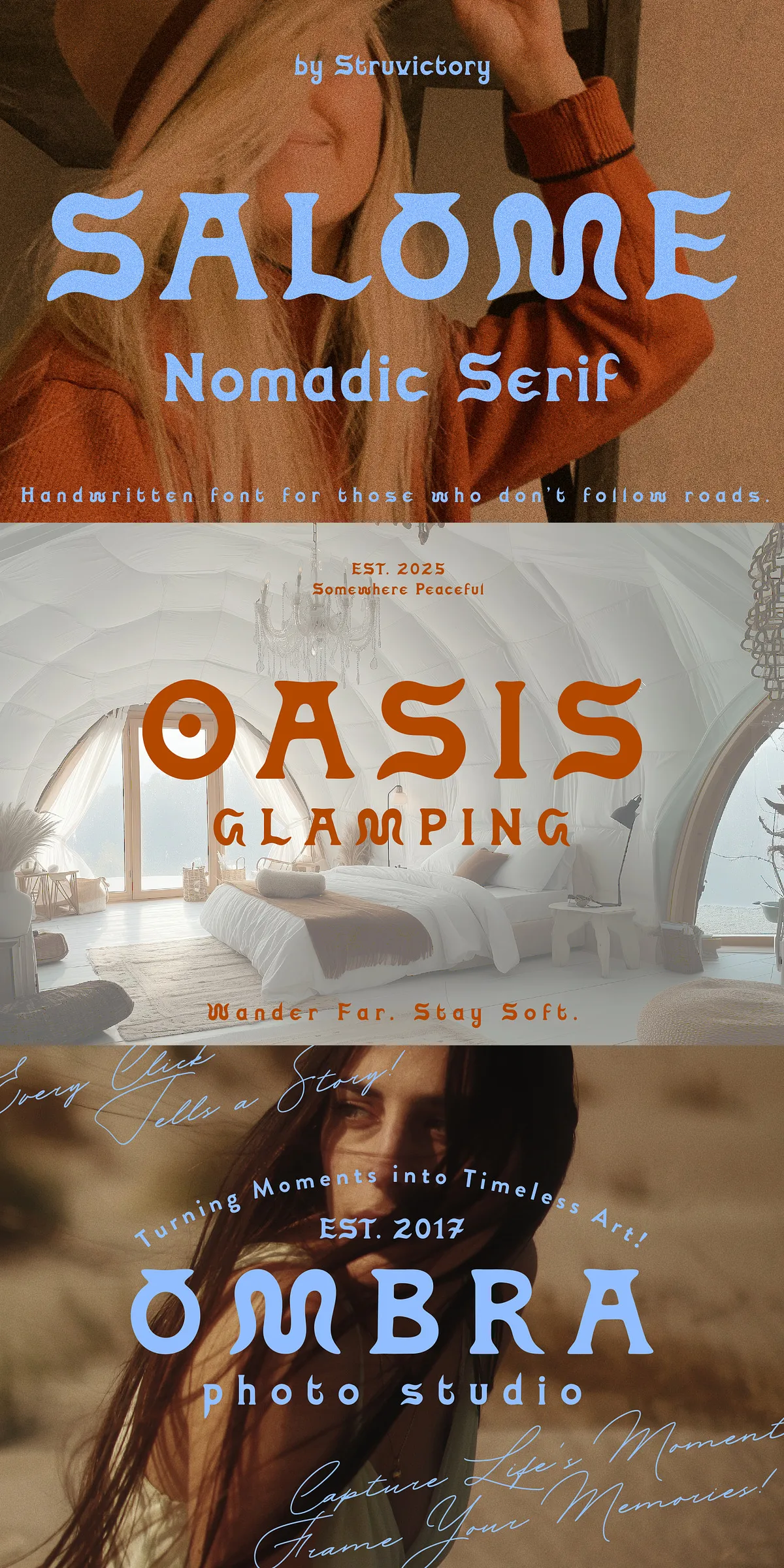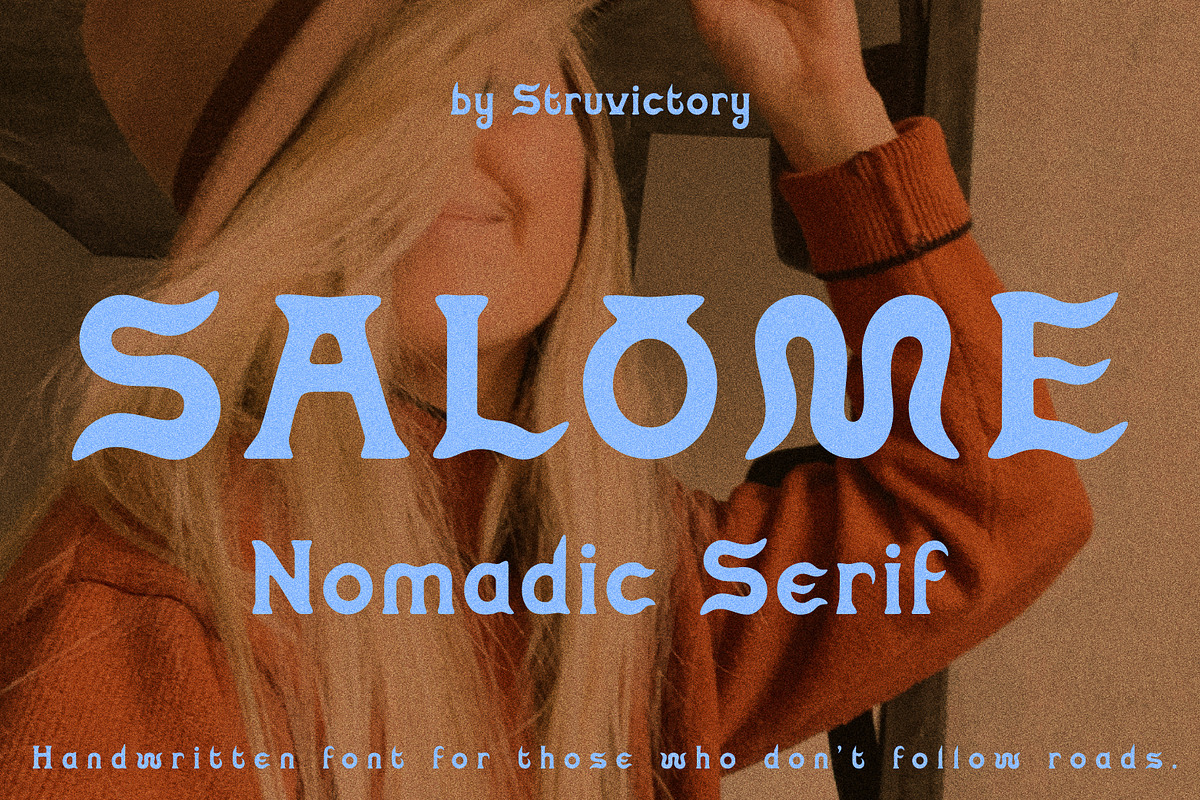
Step boldly into a world of wanderlust, soulful typography, and effortless style with Salome Nomadic — a handmade serif font that doesn’t just mimic handwriting; it embodies the spirit of the open road, the quiet joy of exploration, and the elegance of lived-in beauty. Every curve feels like a journey under a golden sun. Every stroke carries the quiet authenticity of someone who’s walked far, dreamed deeply, and written their story in the dust. This is not a font. It’s a movement for creators who seek character, emotion, and a touch of free-spirited charm in every word they set.
Feel the Craft: Design That Echoes the Soul of the Journey
Salome Nomadic is more than visual art — it’s a sensory experience. Crafted with attention to imperfection and authenticity, it features:
- Sun-Worn Curves – Subtle wear and soft irregularities give letters a weathered, sun-kissed look. These aren’t flaws — they’re the marks of time and travel.
- Tall, Aspiring Letterforms – Elevated ascenders and generous x-heights create a sense of lightness and upward motion, as if the text itself is reaching for the horizon.
- Subtle, Expressive Imperfections – Hand-drawn quivers, slight inconsistencies in stroke width — all carefully preserved to honor the human hand behind the design.
This isn’t clean and sterile. It’s warm, intentional, and alive. It speaks to those who value imperfection as a form of beauty and storytelling as a design principle.
Personalize Your Message: Stylistic Alternates for the Letter “O”
Want to elevate your design with personality? Salome Nomadic includes **stylistic alternates for the letter O**, allowing you to choose from multiple versions — from wide and open to slender and elegant, from round and soft to slightly angular and bold. Use these to:
- Add visual rhythm to names, headlines, and branding slogans.
- Create a sense of movement or variation across a layout.
- Make each design feel uniquely crafted, never repetitive.
These alternates aren’t decorative tricks — they’re tools to deepen the emotional tone of your message.
Design with Purpose: Where Salome Nomadic Shines
Salome Nomadic is engineered for impact, versatility, and real-world creative use. Here’s where it truly comes alive:
Modern Boho Branding: Where Nature Meets Luxury
Build identities for boutique clothing lines, sustainable home goods, artisanal tea brands, or eco-friendly lifestyle products. Its natural charm fits seamlessly into a “slow living” aesthetic, elevating the brand with quiet elegance without shouting.
Glamping & Adventure Brand Identities
Perfect for luxury camping brands, eco-lodges, adventure travel experiences, and outdoor gear companies. The font’s travel-worn aesthetic immediately sets a tone of authenticity, comfort, and refined escape — exactly what customers crave.
Editorial Titles & Feature Layouts
Use Salome Nomadic for magazine spreads, blog headers, book covers, and editorial design. Its expressive nature pulls readers in, making headlines feel personal, meaningful, and unforgettable.
Sun-Drenched Packaging & Labeling
Whether it’s for skincare, candles, or artisanal food, this font adds a tactile, hand-crafted vibe to packaging. It tells a story before the product is even opened. Imagine a soap wrapper with your brand name in Salome Nomadic — it doesn’t just label the item. It invites the customer into a moment of calm, memory, and beauty.
Global in Reach, Local in Heart: Multilingual Latin Support
From Lisbon to Los Angeles, from Lyon to Lima — your message stays beautiful, readable, and on-brand.
Pro Tips to Maximize Impact
Unlock the full potential of Salome Nomadic with these expert strategies:
- Pair with a Clean Sans-Serif – Use a simple, neutral sans-serif like Inter or Montserrat for body text to let the font shine as a headline element.
- Create Visual Hierarchy – Use the various weights (if available) and stylistic alternates to guide the reader’s eye through the page.
- Use in Black & White – The font’s character shines even in monochrome. Perfect for print, embossing, or minimalist designs.
- Adjust Tracking for Mood – Tight tracking creates intimacy and focus; wider tracking amplifies the sense of space and freedom.
Elevate Your Vision with Salome Nomadic
If your work seeks to inspire, connect, and linger in the mind, Salome Nomadic isn’t just a tool — it’s a partner. It’s the voice behind a brand that values authenticity, the hand that writes a letter meant to be kept, the typeface that brings a story to life on the page.
Salome Nomadic is more than a font. It’s a promise: to design with soul, to create with freedom, and to write your story with bold, beautiful strokes.